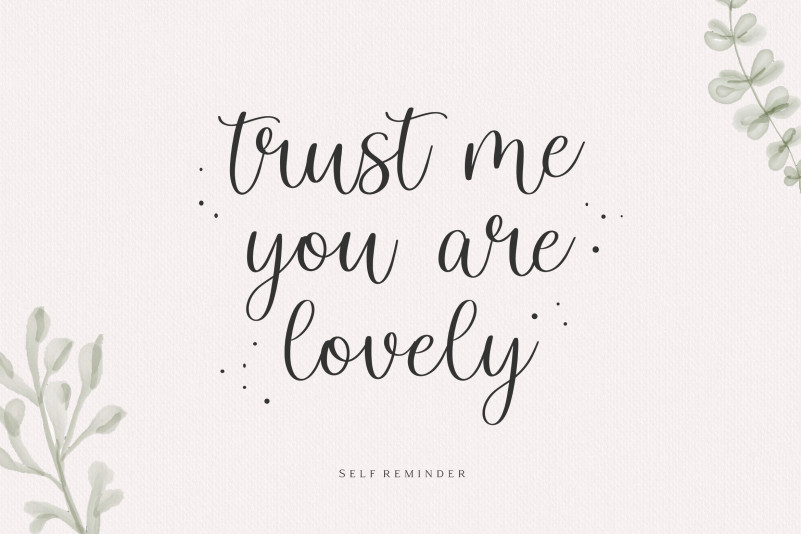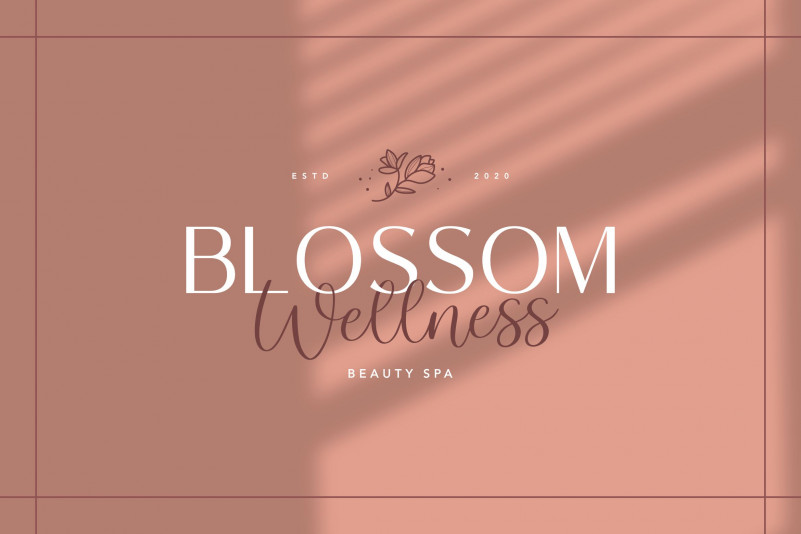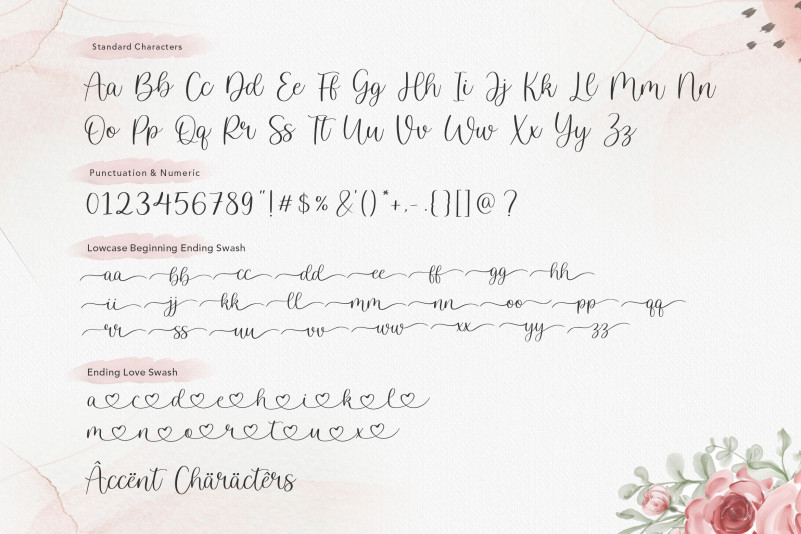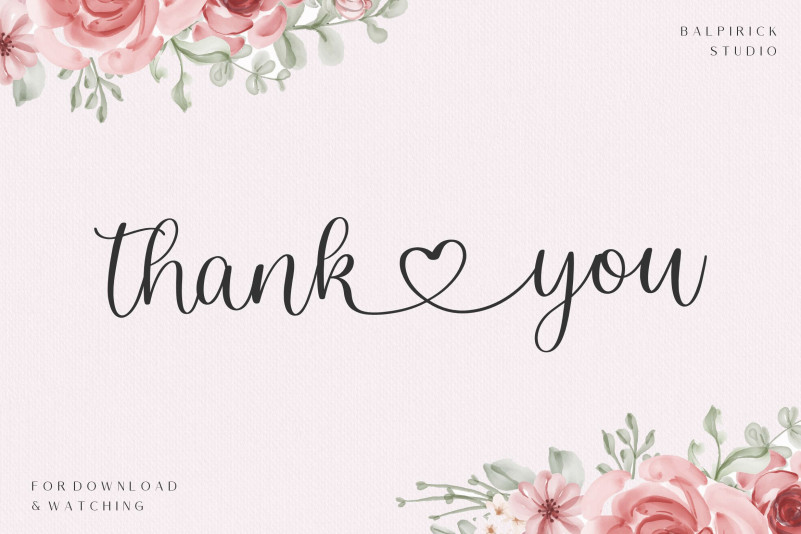
Martin Kamila Script Font
Introducing by Balpirick Studio.
Proudly Present, martin kamila Font.
Martin kamila is a lovely script handdrawn font.
Martin kamila is perfect for product packaging, branding project, megazine, social media, wedding, or just used to express words above the background.
Lowercase font Stylistic Alternates Ligatures Symbols & Punctuation OpenType Features.